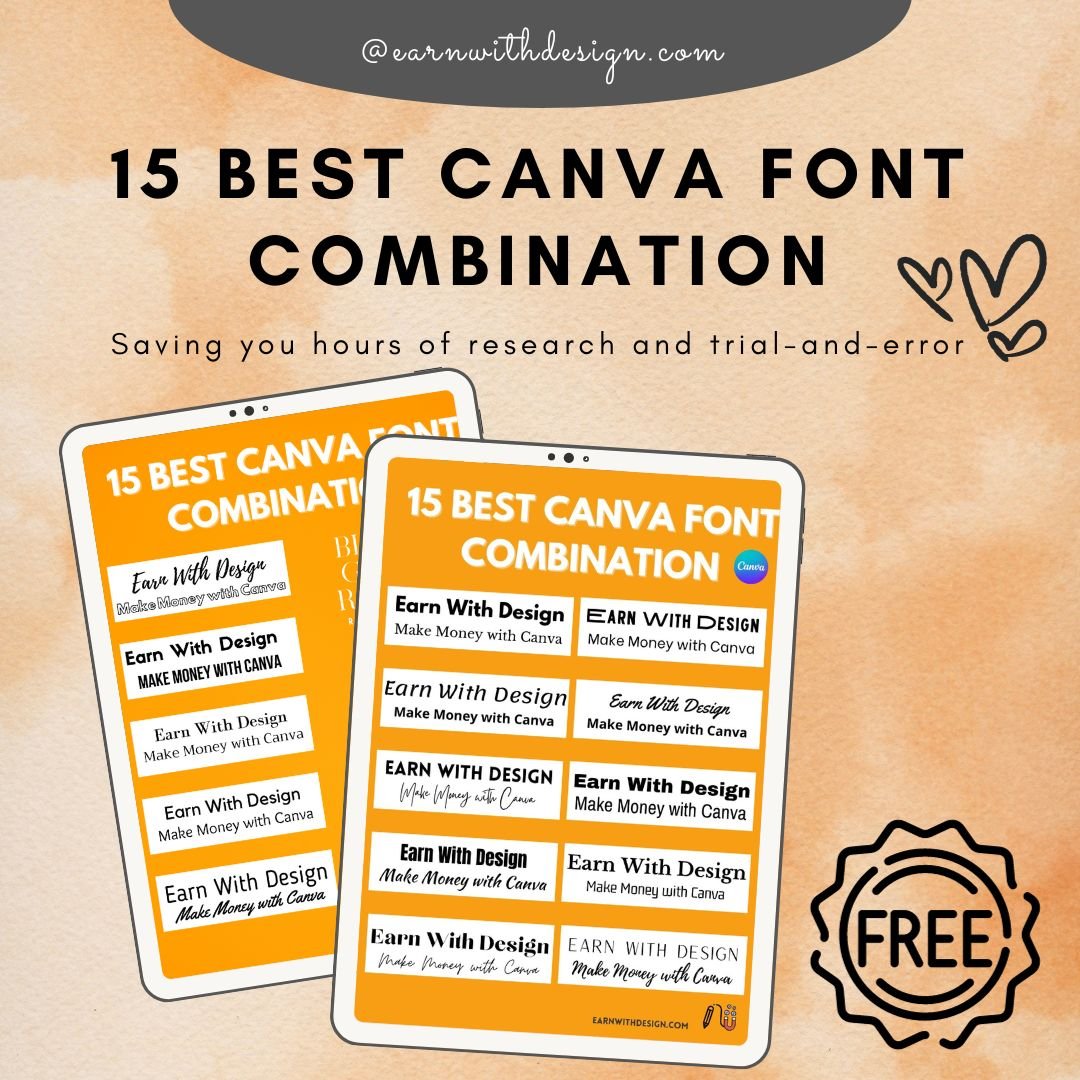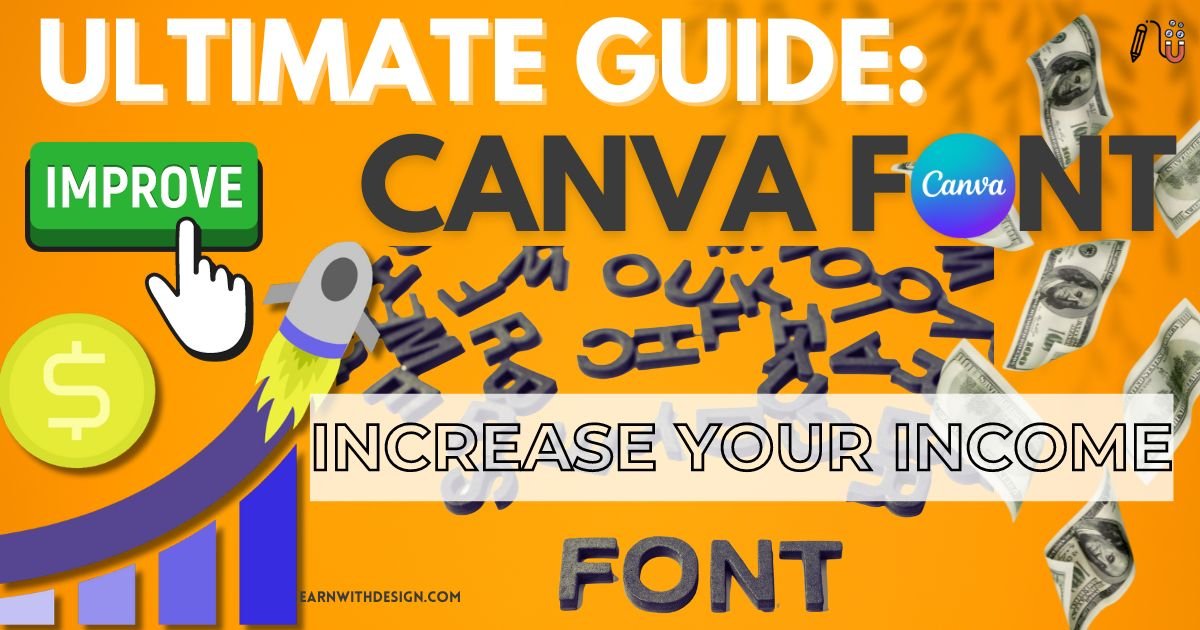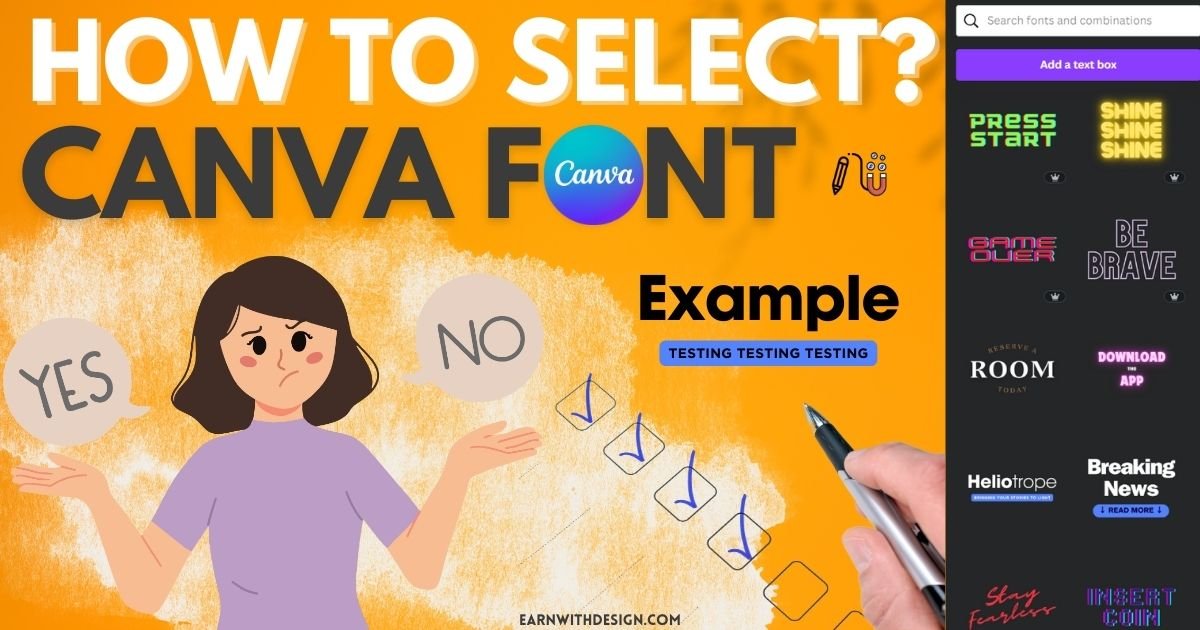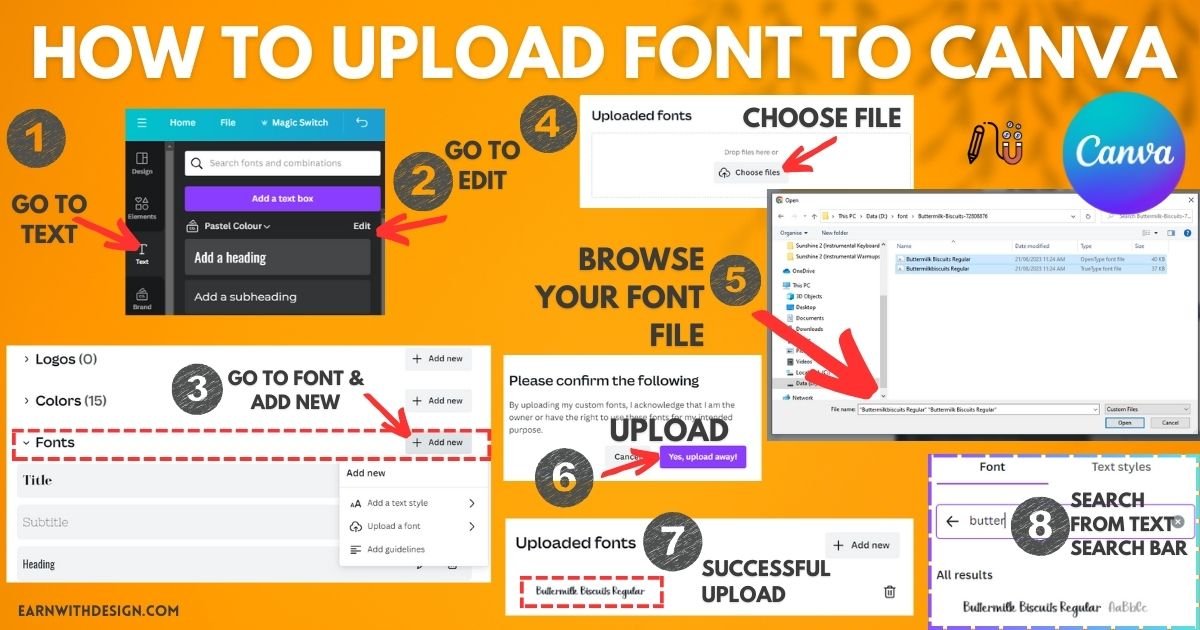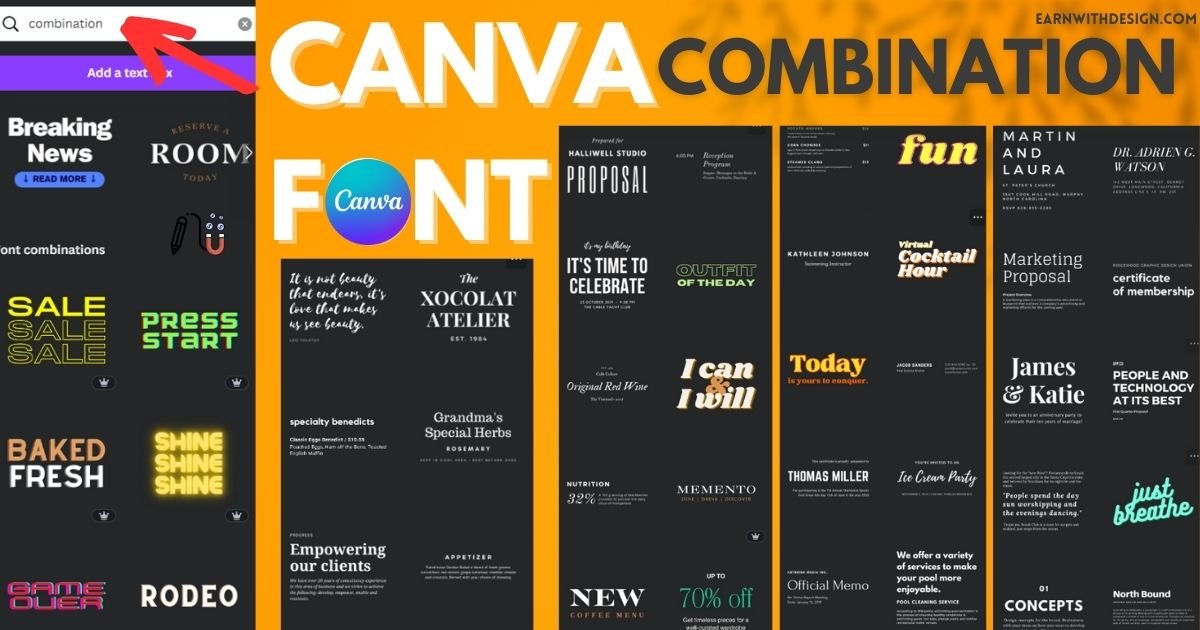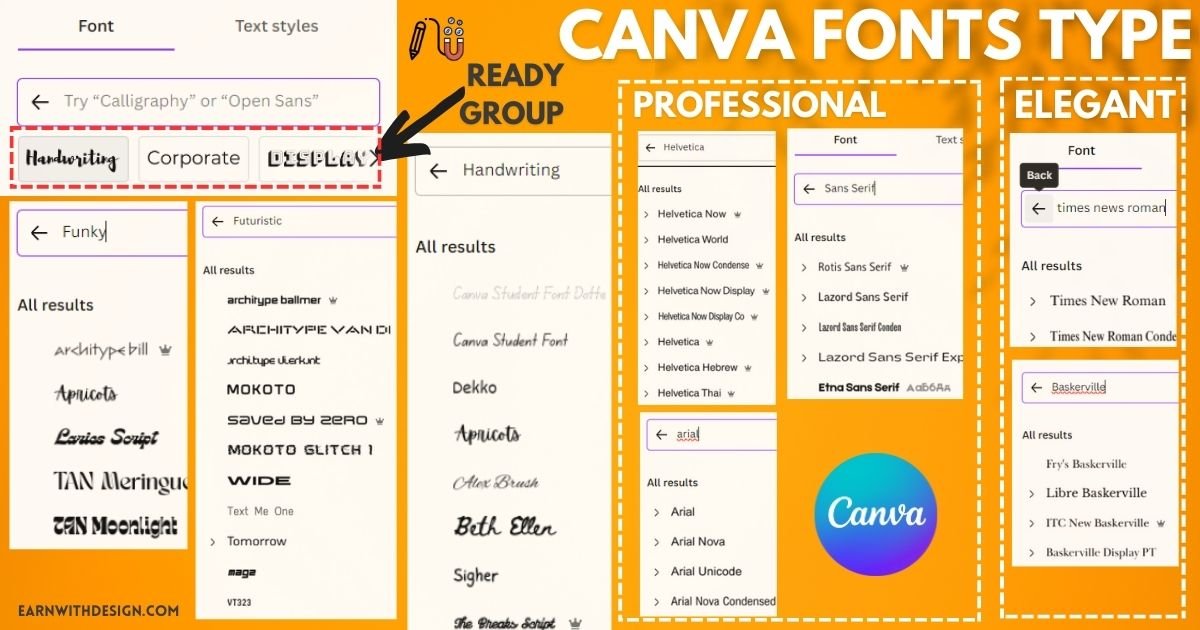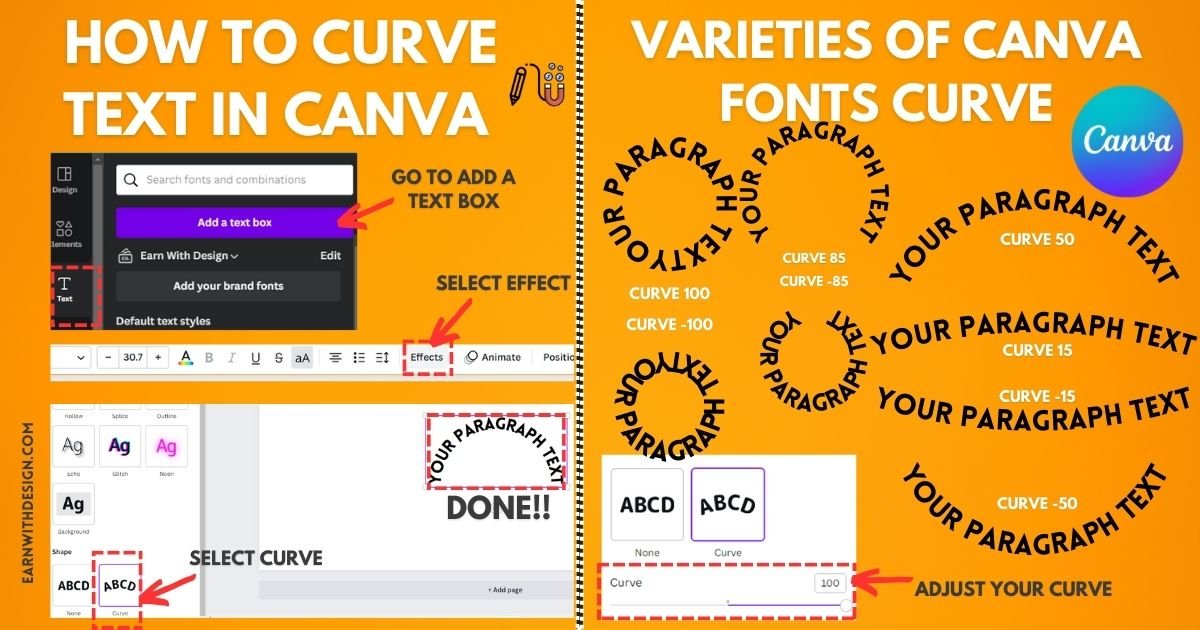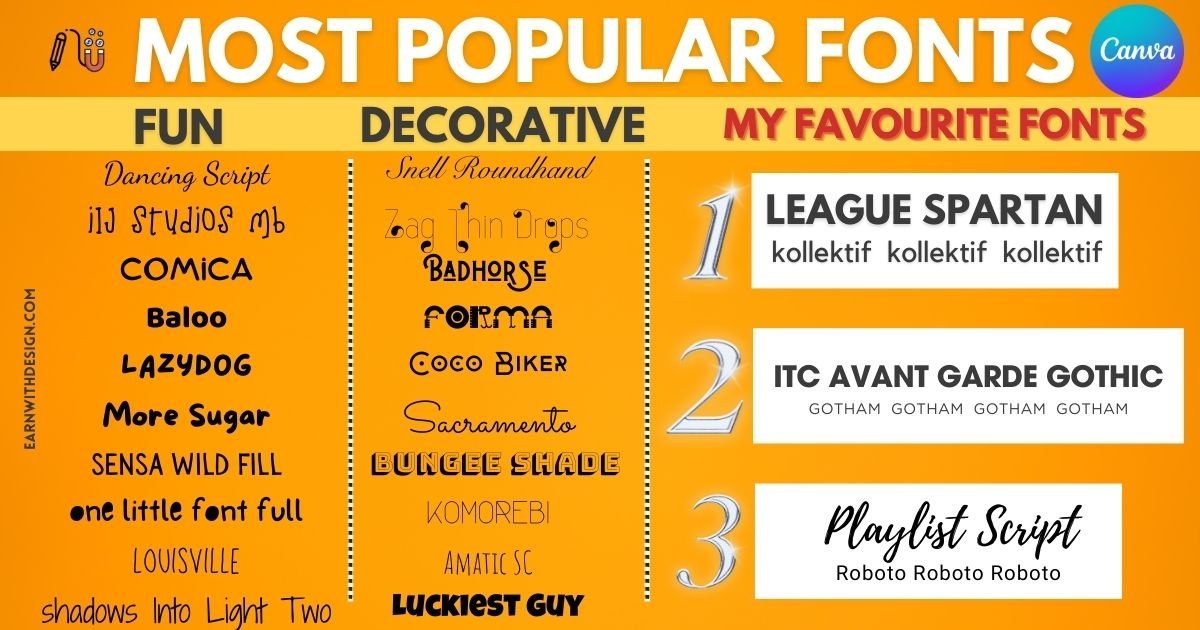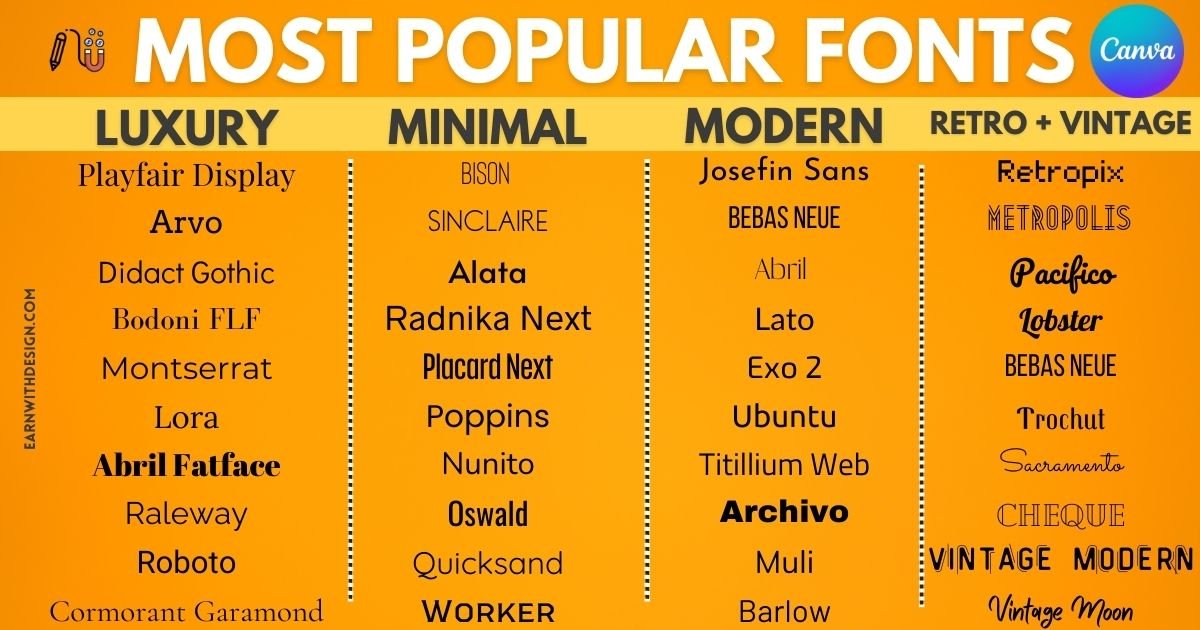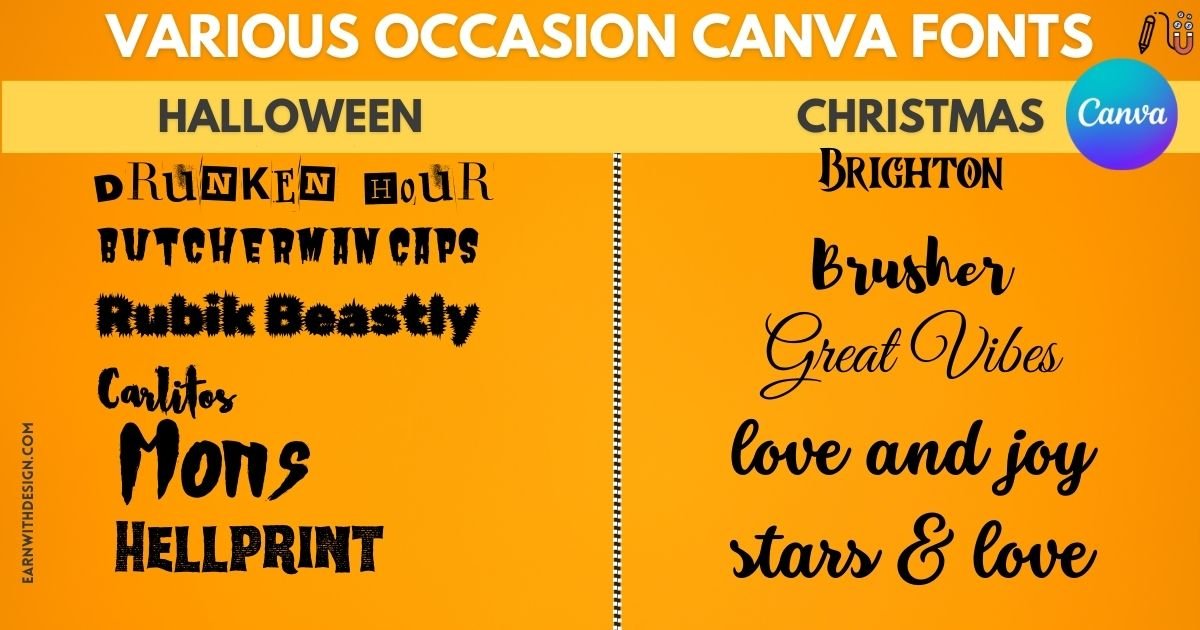
15 Best Canva Fonts I Use to Sell Templates (Free + Pro)
I’ve been designing digital products in Canva for over 3 years – planners, Pinterest pins, Etsy thumbnails, lead magnets. The font I choose can literally double a click-through rate on a Pin or make a planner cover look cheap instead of premium.
But Canva has 3,000+ fonts. Most are unusable. Some are gorgeous but illegal for commercial use. A handful are gold.
Here are the 15 free Canva fonts and 10 Pro fonts I actually keep coming back to – sorted by what I use them for (Etsy listings, Pinterest, planner covers, sales pages). No theory. Just the names, what they look like, and where to use them.
How I Pick Canva Fonts (the 30-second rule)
Before I touch a font in Canva, I ask 3 questions:
1. Will it read at thumbnail size? Pinterest pins and Etsy listings get scrolled at small sizes. If a font goes blurry at 300px, it’s out.
2. Does it match the buyer, not me? A planner for busy moms needs friendly + clean. A digital marketing course needs bold + modern.
3. Is it commercial-use safe? Some Canva fonts have restrictions. (Covered below.)
If a font passes all 3 in under 30 seconds, I use it. If it doesn’t, I move on. No agonizing.
15 Best FREE Canva Fonts (With Use Cases)
For Headlines & Thumbnails
1. Glacial Indifference Clean, modern sans-serif. My go-to for Etsy thumbnails and Pinterest pin headlines. Works for almost any niche.
2. Anton Heavy, condensed display font. Use for bold Pinterest pin headlines that need to STOP the scroll. Don’t use it for body text.
3. League Spartan Geometric sans-serif with strong character. Good for digital product covers in tech, business, or productivity niches.
4. Bebas Neue Tall, narrow caps-only font. Classic for Pinterest pins, YouTube thumbnails, and bold headers. Slightly overused, but for a reason.
5. Oswald Condensed sans-serif. Similar use case to Bebas but with lowercase. Works for blog post graphics.
For Body Text & Subheadings
6. Open Sans The most readable free font in Canva. Use for body copy on sales pages, ebook interiors, and digital planner content.
7. Lato Clean, friendly sans-serif. Excellent body text alternative to Open Sans. Works in lifestyle, wellness, and creator niches.
8. Montserrat Versatile sans-serif. Works as both headline (bold) and body (regular). When you’re not sure, default to Montserrat.
9. Poppins Modern, rounded sans-serif. Friendly without being childish. Great for coaching, wellness, and online business niches.
10. Quicksand Soft, rounded font. Use for products targeting moms, kids, or lifestyle audiences.
For Script & Decorative
11. Alex Brush Elegant script font. Use sparingly – for accent words on planner covers or wedding-related products.
12. Great Vibes Flowing calligraphy script. Better for premium-feel covers. Pair with a clean sans-serif like Montserrat.
13. Pacifico Casual handwritten script. Use for fun, friendly products – kids printables, casual lifestyle.
14. Caveat Handwritten style, but readable. Good for testimonials, highlights, or “personal note” sections on sales pages.
15. Playfair Display Elegant serif with sharp contrast. Use for premium digital products, course covers, and feminine business branding.
10 Best Canva PRO Fonts Worth the Subscription
If you sell digital products, Canva Pro pays for itself. These 10 fonts alone justify the subscription.
1. Recoleta – Modern serif with personality. My #1 pick for premium planner covers.
2. Brittany Signature – Hand-lettered signature script. Perfect for course brand logos.
3. Larken – Elegant serif. Looks expensive. Use for luxury or coaching brands.
4. Made Evolve Sans – Bold modern sans-serif. Great for digital marketing and business niches.
5. Canva Sans – Canva’s own font. Clean, readable, and never goes out of style.
6. Halimun – Modern script. Use for premium templates and ebook covers.
7. The Seasons – Classic serif. Editorial feel – good for content creators and bloggers.
8. Quincy CF – Refined serif. Use for premium feminine brands.
9. Beloved Sans – Friendly humanist sans-serif. Great for wellness, coaching, lifestyle.
10. Magnolia Script – Elegant calligraphy. Use sparingly for accent text.
Canva Font Pairings That Sell
3 pairings I use on repeat:
For Etsy planner covers: Playfair Display (headline) + Lato (body) For Pinterest pins: Anton (headline) + Open Sans (body) For sales pages: Montserrat Bold (headline) + Montserrat Regular (body)
Rule: One font is the star. The other supports. Never two display fonts together.
What’s the best Canva font for an Etsy shop? For thumbnails: Anton or Bebas Neue (bold, readable at small sizes). For inside the product: Lato or Open Sans.
How many fonts should I use in one design? Two. Maximum three. Any more and the design looks chaotic.